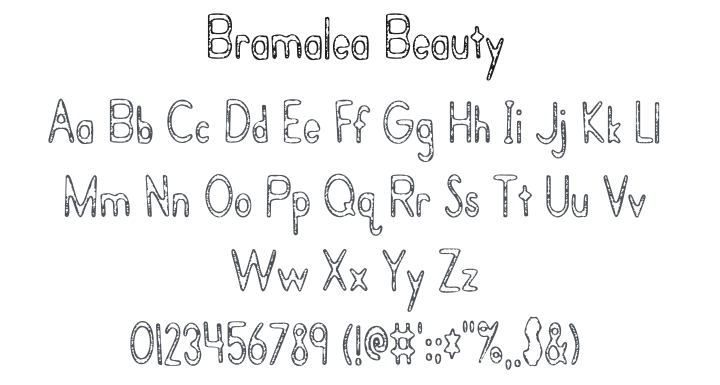
Bramalea Beauty Font
About Bramalea Beauty
Bramalea Beauty is a heavily degraded, distressed display typeface described by its creator as "a font of pure filth." Letters appear severely worn, eroded, and beaten — as if printed by a failing machine on a bad day. It suits gritty punk aesthetics, underground zines, horror titles, urban decay-themed designs, and any project that thrives on raw, irreverent roughness.